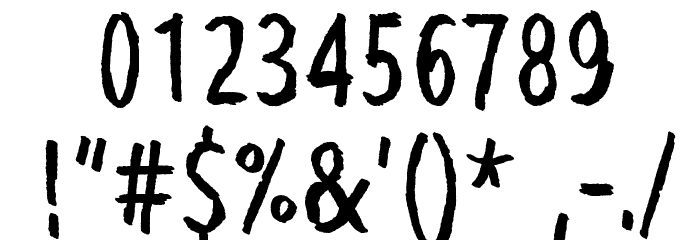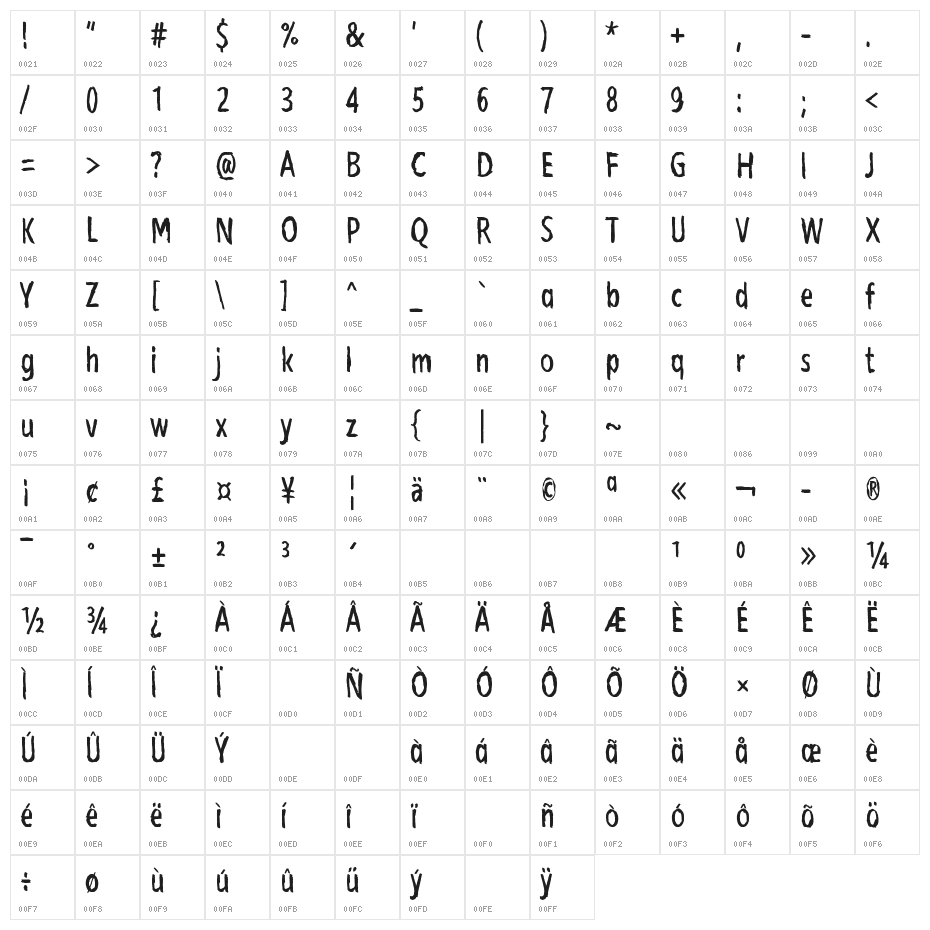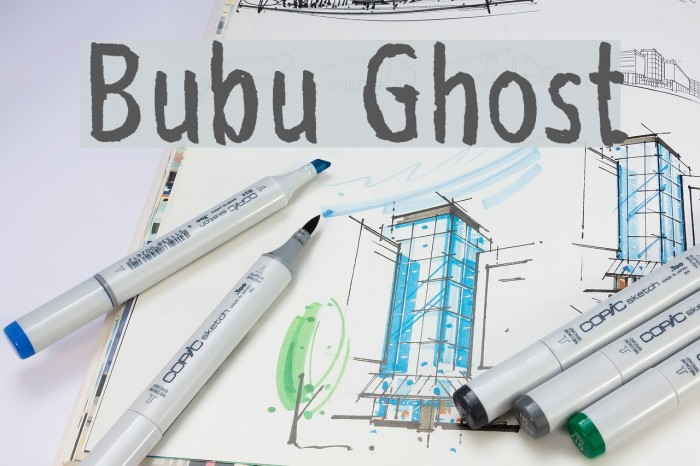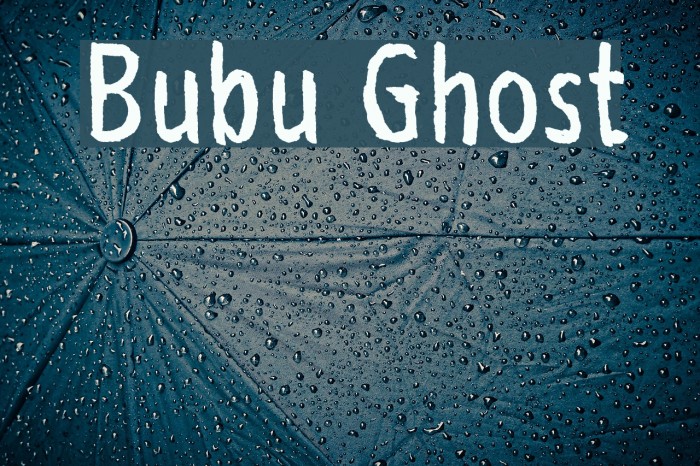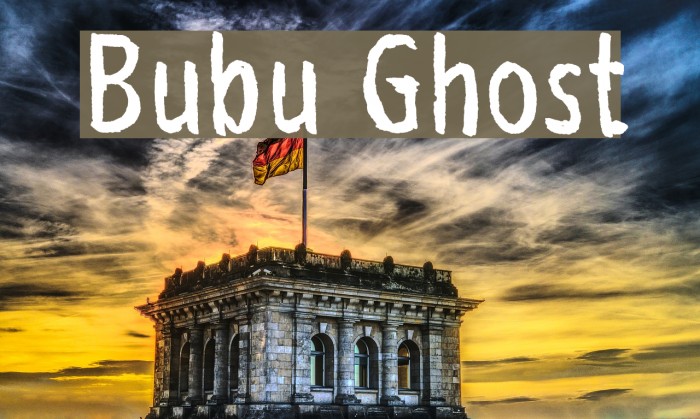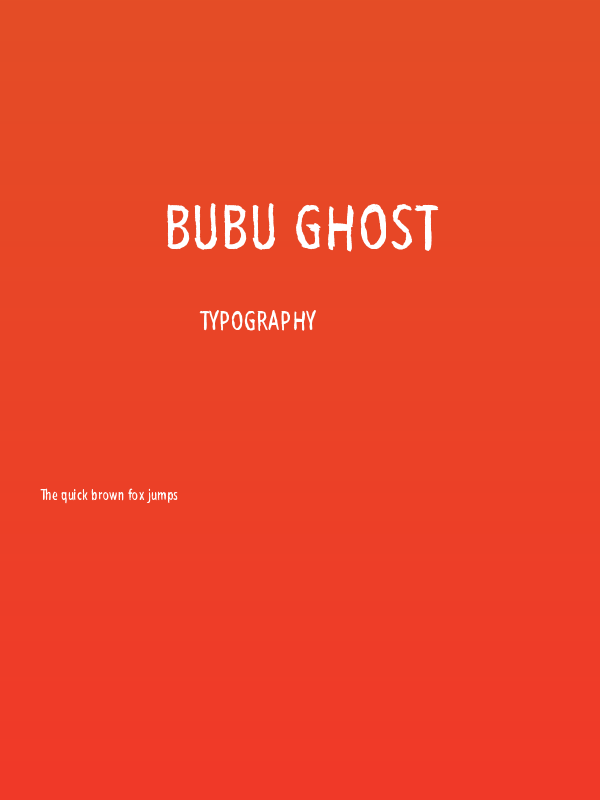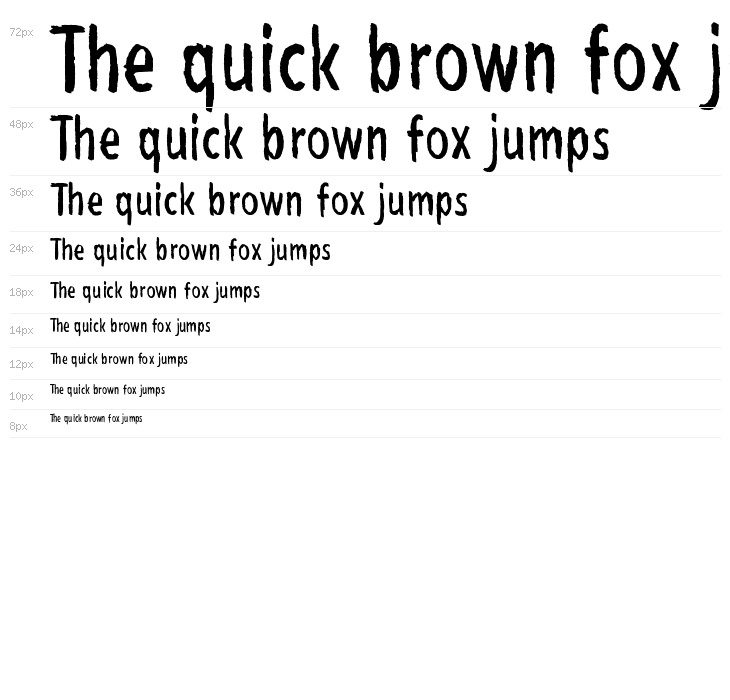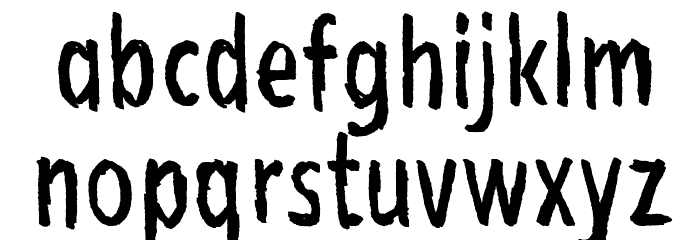
Bubu Ghost Font
Bubu Ghost Description
This font features a playful and slightly irregular style, reminiscent of hand-drawn letters. The characters have a rough, textured appearance, giving them a casual and informal vibe. The uppercase and lowercase letters maintain a consistent height, while the numbers and special characters follow the same design ethos, adding to the font's cohesive look. The strokes are uneven, with some variation in thickness, contributing to its unique charm. This font is ideal for projects that require a touch of whimsy and personality.
| Proposed Projects | Perfect for children's books, playful branding, casual invitations, and creative posters. |